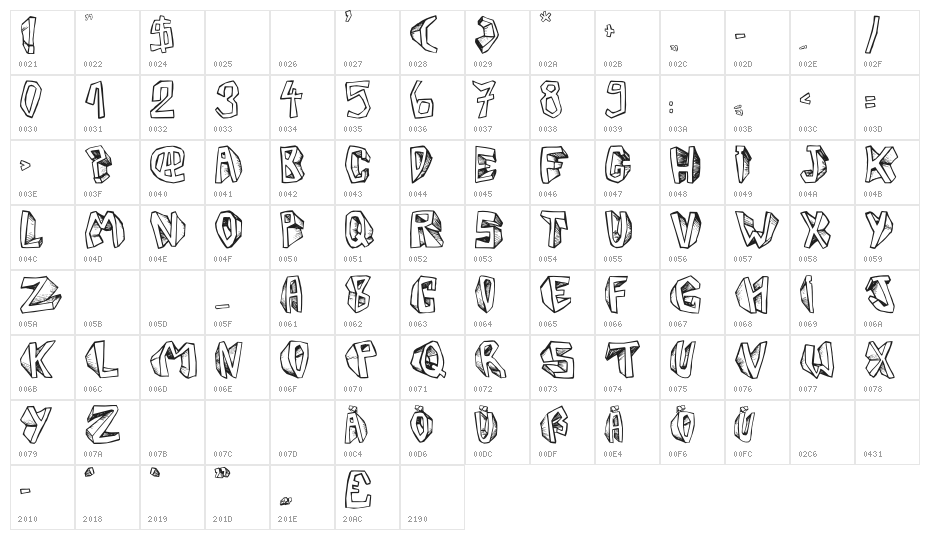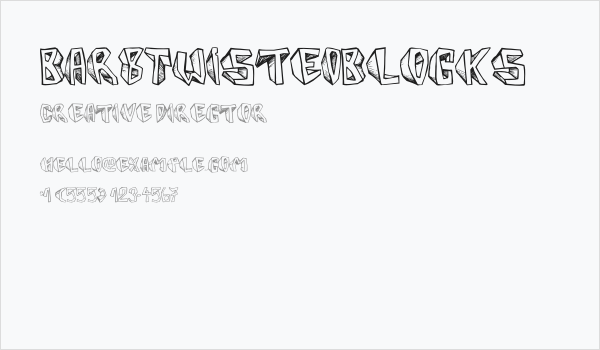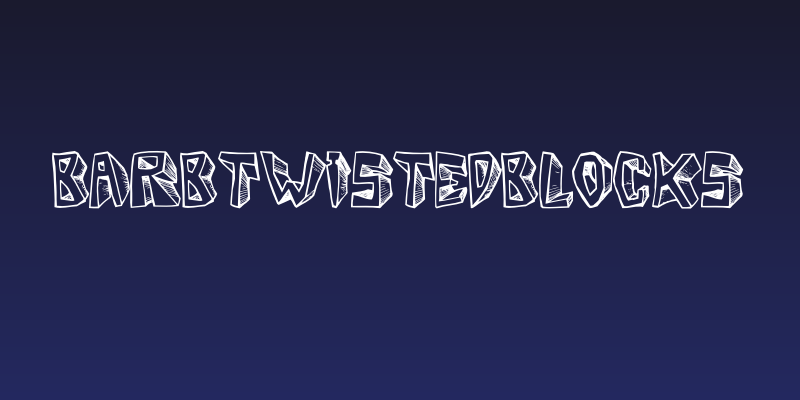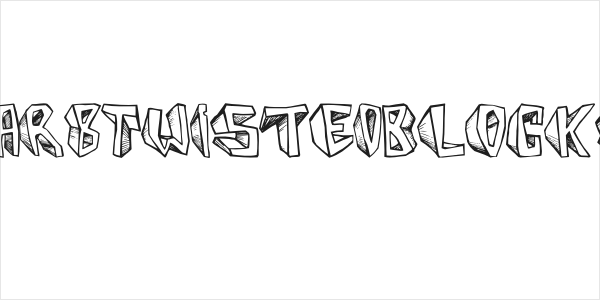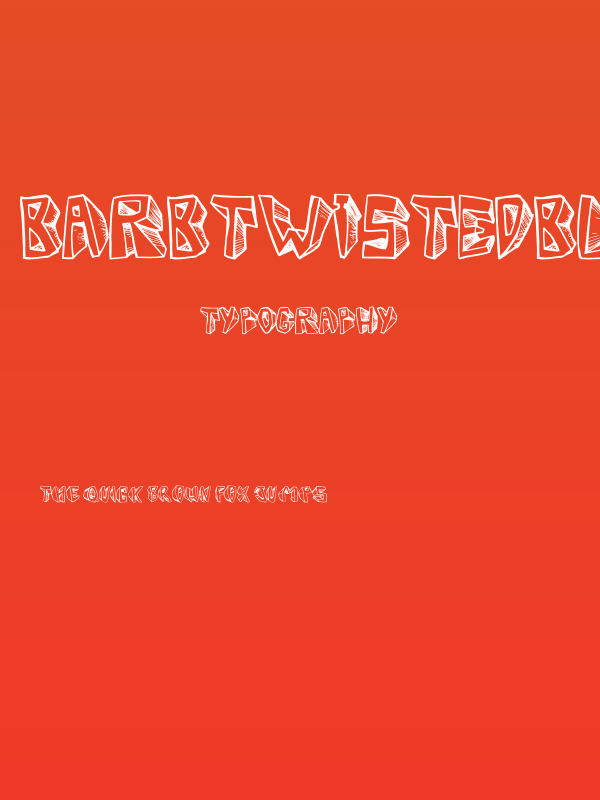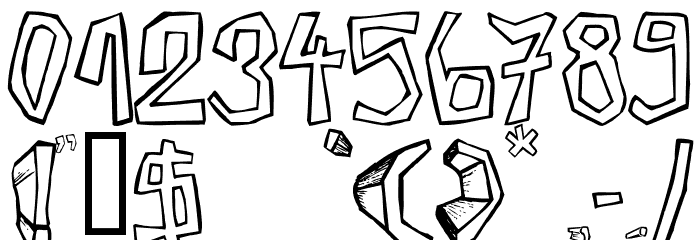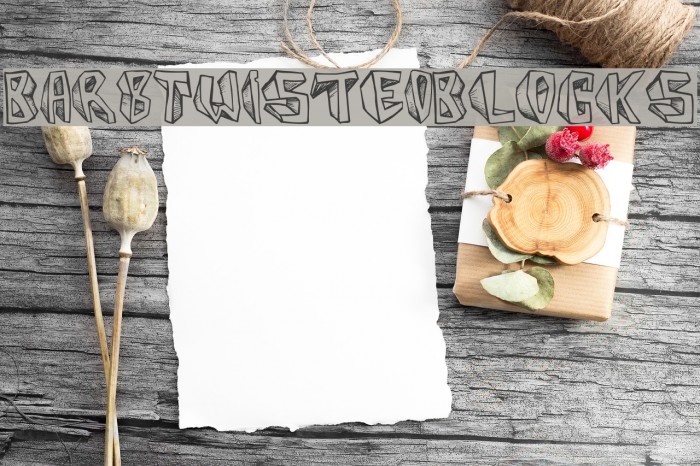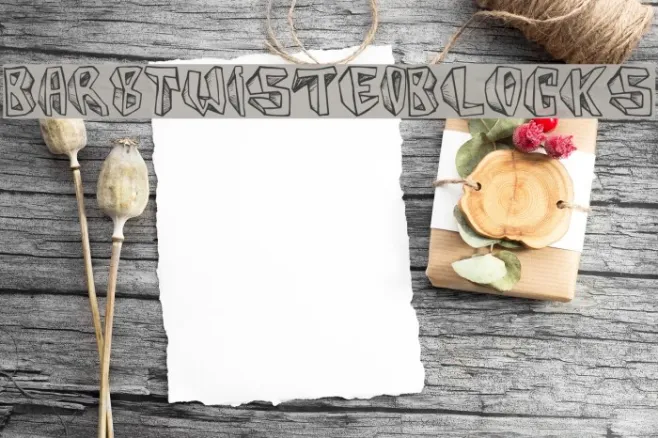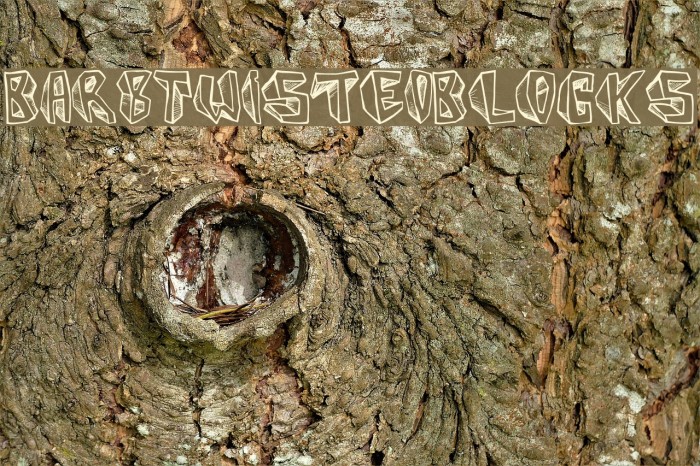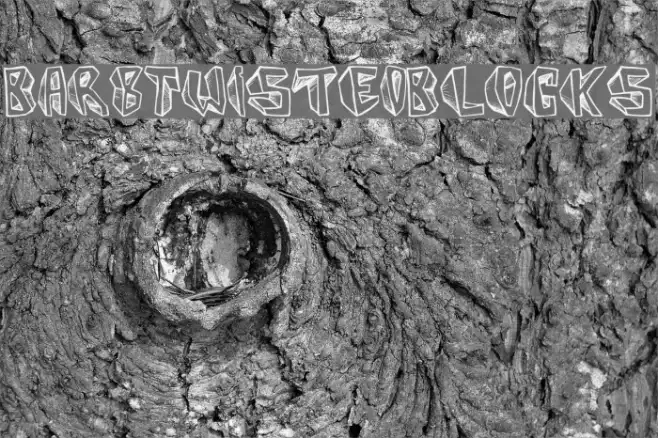
BarbTwistedBlocks Font
BarbTwistedBlocks Description
This font features a bold, three-dimensional block style with a hand-drawn appearance. Each character is outlined with a thick black line, giving it a rugged and edgy look. The interior of the letters is filled with intricate line work, adding texture and depth. The font has a playful and artistic vibe, making it stand out with its unique, twisted block design. The uppercase and lowercase letters maintain a consistent style, while the numbers and special characters follow the same creative theme. This font is ideal for projects that require a bold and eye-catching aesthetic.
| Proposed Projects | Ideal for posters, album covers, graffiti art, and creative branding projects. |